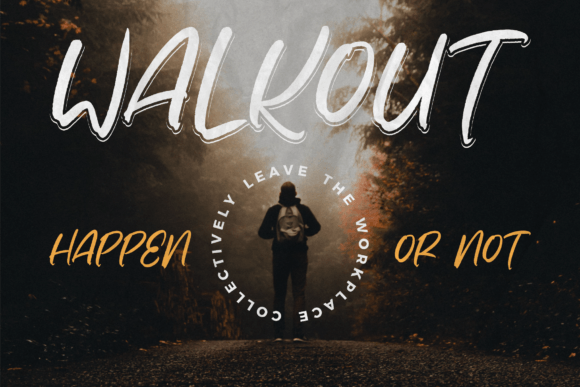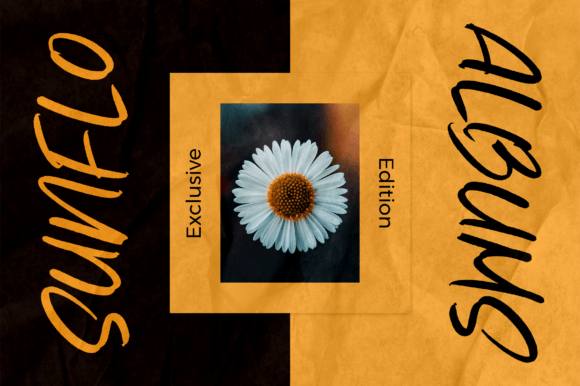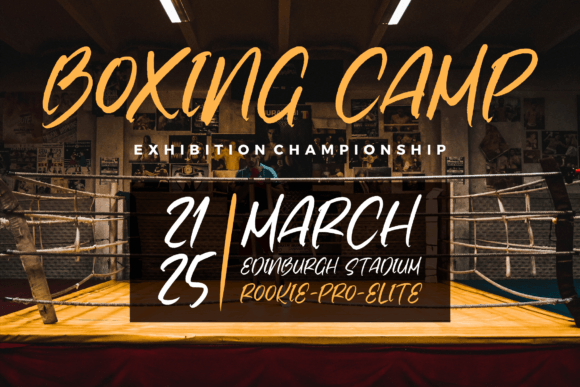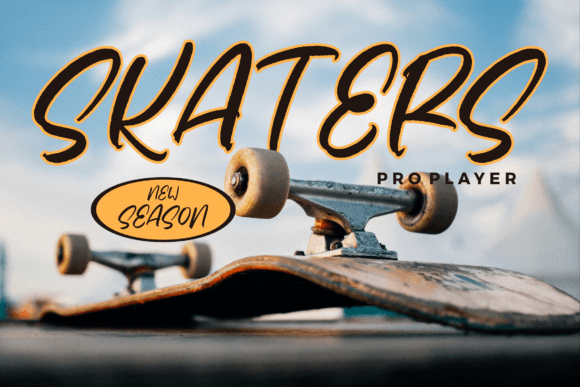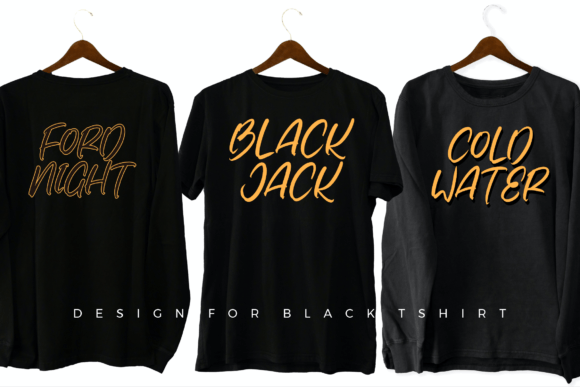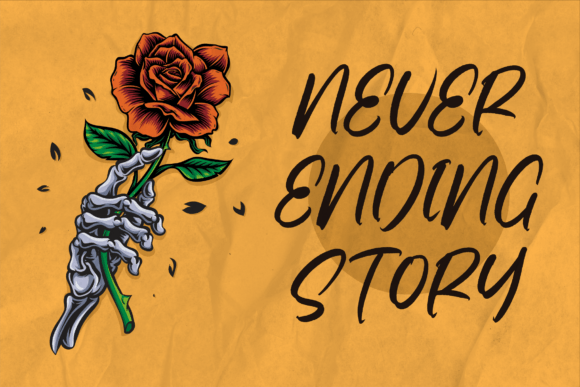
Introduction to Morelish Bugant Font
Have you ever stared at a blank canvas, trying to bring your creative vision to life, only to be held back by the perfect font? That moment of frustration is a familiar one for many designers. But what if you could find the perfect script font to elevate your project and leave a lasting impression?
Enter the Morelish Bugant Font, a stunning creation from Letterfabric Studio that’s sure to be a game-changer for your next creative project. This beautiful script font is designed to be versatile, making it perfect for logos, branding projects, and everything in between.
With its high-quality design and transparent background, the Morelish Bugant Font is a valuable resource for designers looking to add a touch of elegance to their work. Whether you’re working on a free download or a paid design project, this font is sure to be a hit with clients and customers alike.
Key Features of Morelish Bugant Font
- Unique and Creative Design: The Morelish Bugant Font is a perfect design resource for any creative project, offering a unique and eye-catching look that can elevate your work.
- High-Quality Typography: This font features high-quality typography with a transparent background, making it ideal for use on various design backgrounds.
- Perfect for Creative Projects: The Morelish Bugant Font is a versatile design resource that can be used for various creative projects, including logos, branding, and advertising materials.
- Easy to Customize: The font’s unique design makes it easy to customize and manipulate, allowing designers to create unique and personalized designs.
Honest Review: Morelish Bugant Font
I recently stumbled upon the Morelish Bugant Font while searching for a design resource to elevate my creative project. The first thing that caught my attention was the font’s unique, hand-drawn style that’s perfect for adding a personal touch to any design.
What works well: ✨ The font has a transparent background, making it easy to use in any design scenario. The high quality of the font is also noticeable, with crisp and clear letters that render well in various sizes.
Here are some of the key features that make the Morelish Bugant Font stand out:
- Unique, hand-drawn style that adds a personal touch to designs
- Transparent background for easy use in various design scenarios
- High quality, crisp and clear letters that render well in various sizes
Overall, the Morelish Bugant Font is a great design resource for creative projects that require a unique and personal touch. With its high quality and transparent background, it’s definitely worth considering for your next design project.
Designing with Morelish Bugant Font
The Morelish Bugant Font is a free download perfect for your next creative project. This high-quality design resource features a unique and elegant style, making it ideal for various applications. One of the standout features of this font is its transparent background, allowing you to easily place it over any image or design.
Tips for Getting the Most Out of Morelish Bugant Font
To get the most out of the Morelish Bugant Font, experiment with different font sizes, colors, and combinations. You can also use this font in conjunction with other design elements, such as images and shapes, to create visually appealing designs.
Is the Morelish Bugant Font suitable for high-resolution printing?
Yes, the Morelish Bugant Font is designed to be high-quality and suitable for high-resolution printing. We’ve carefully crafted the font to ensure it looks great at any size, from small text to large headlines. If you’re working on a design project that requires high-resolution printing, we recommend using the font in conjunction with our transparent background for a crisp, professional finish.